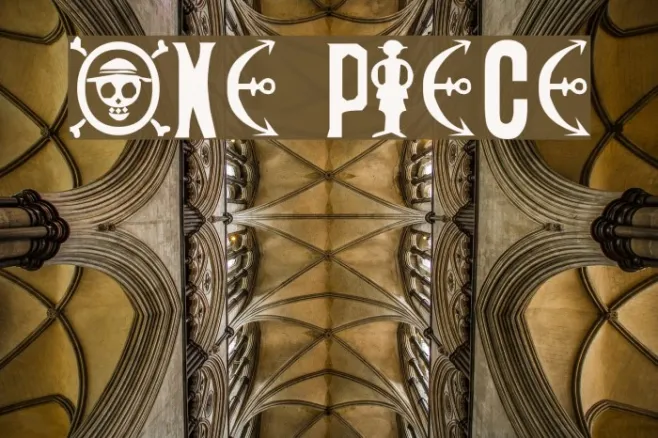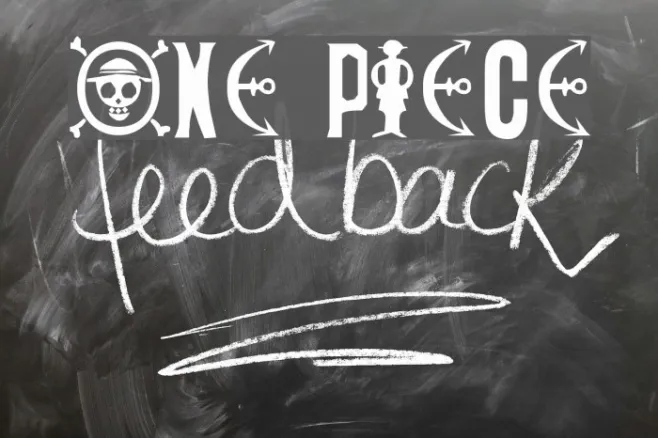
ONE PIECE Font
ONE PIECE Description
This font features a bold and adventurous design, incorporating elements inspired by pirate themes. The uppercase letters are distinct, with some characters featuring unique embellishments like hooks and pirate silhouettes. The lowercase letters maintain a playful yet readable style, with consistent stroke widths. Numbers and special characters also carry thematic elements, such as arrows and skull motifs, adding to the overall adventurous feel. This font is ideal for creative projects that require a touch of whimsy and excitement.
| Proposed Projects | Perfect for themed event posters, children's book covers, or any design needing a playful, adventurous touch. |